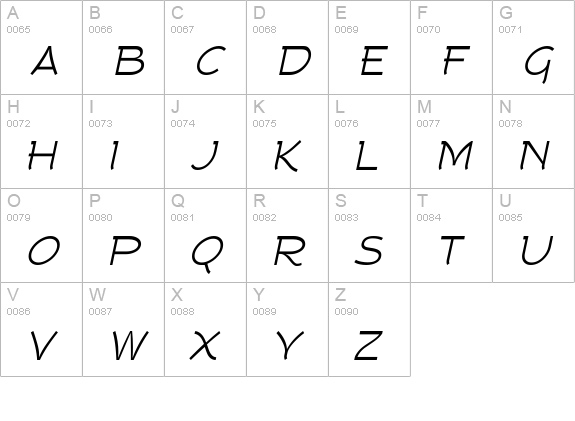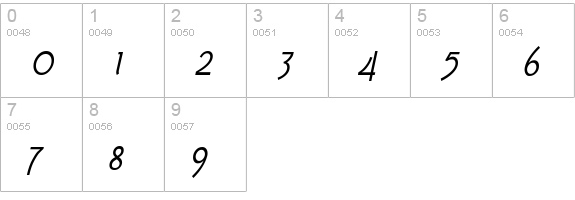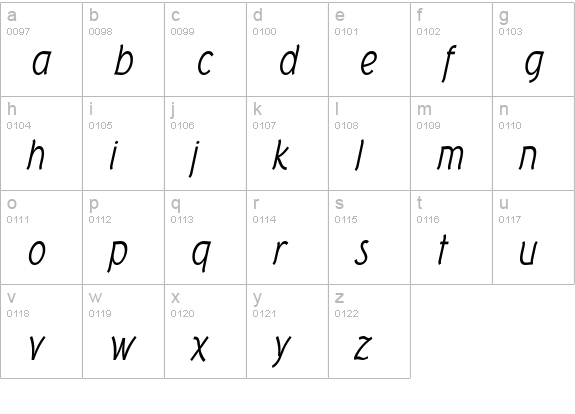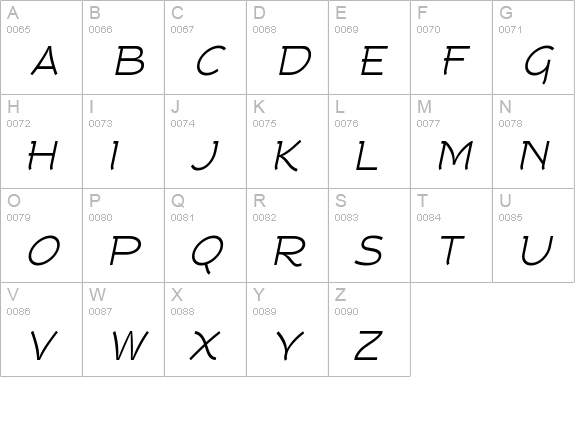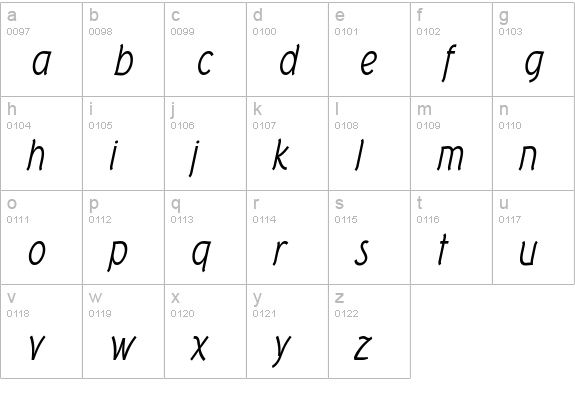
Tork Italic Font Details
Tork Italic is a distinctive, italic variant in the Tork typeface family \xE2\x80\x94 well suited to design and typography projects.
Introducing Tork Italic, a captivating font that effortlessly combines elegance with a touch of modernity. Crafted with meticulous attention to detail, Tork Italic exudes a sense of sophistication that will elevate any design project to new heights. This versatile typeface boasts a unique italicized style, adding a dynamic flair to your text. Its graceful curves and slanted angles lend a sense of movement, creating a visual rhythm that is both pleasing to the eye and engaging to the reader. Tork Italic is the perfect choice for a wide range of design applications. Whether you're working on branding, editorial design, invitations, or even web design, this font will effortlessly adapt to any context, making it a valuable asset in your creative toolkit. But that's not all – Tork Italic is also free! Yes, you read that right. This stunning font is freely available to download at FontsMarket.com, where you can easily access it and integrate it into your projects without any hassle. So, you can now bring a touch of elegance and professionalism to your designs without breaking the bank. Don't miss out on the opportunity to enhance your creative endeavors with Tork Italic. Download it today from FontsMarket.com and embark on a journey of captivating typography that will leave a lasting impression on your audience.